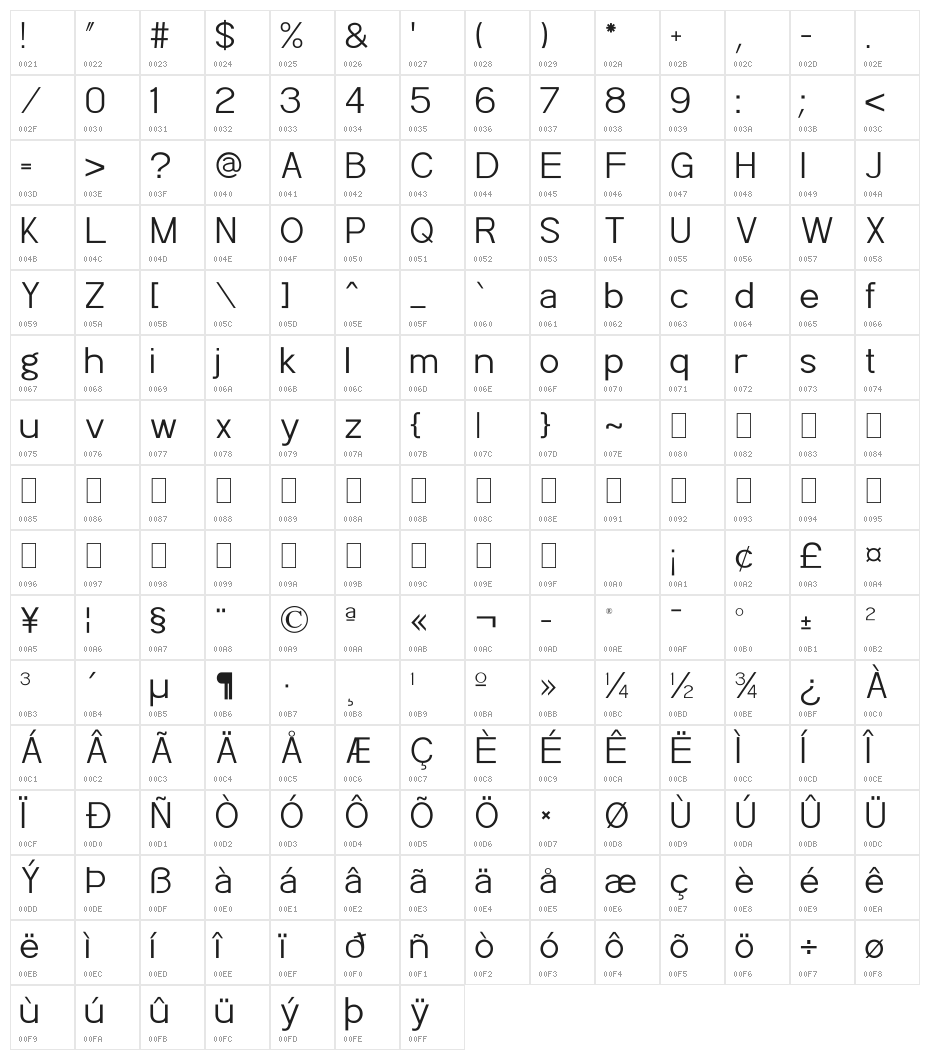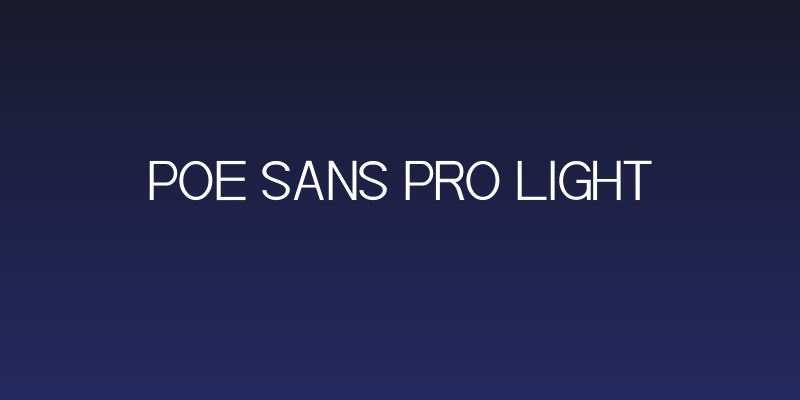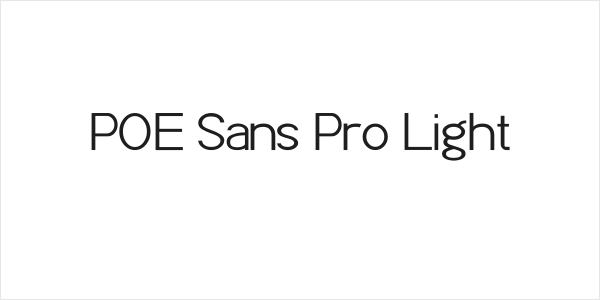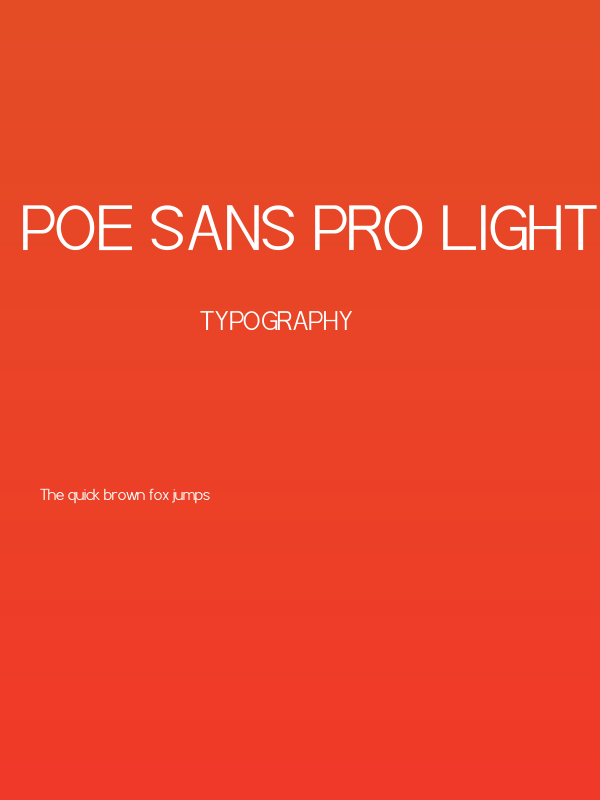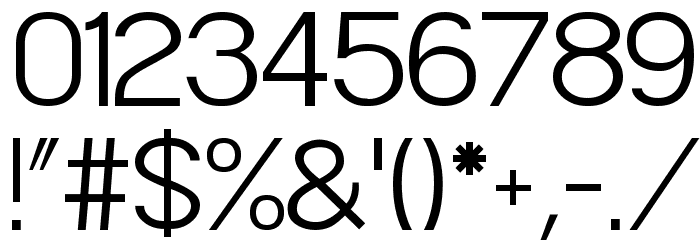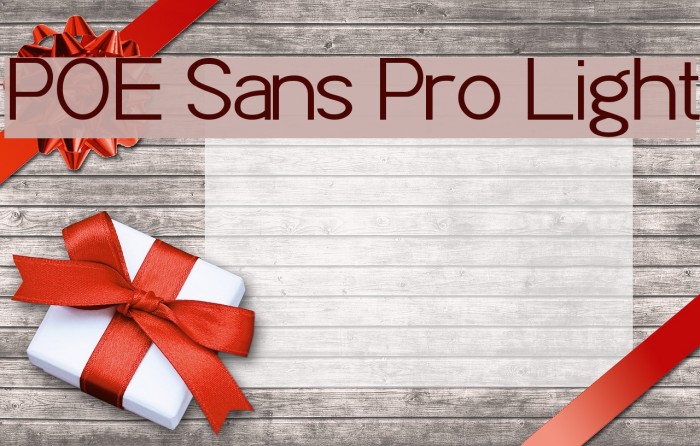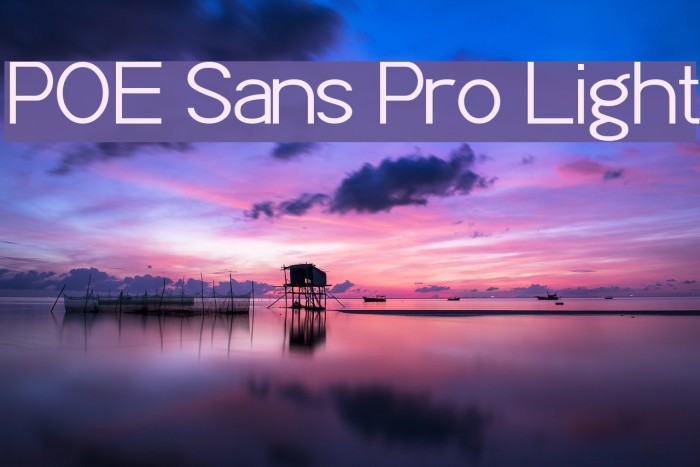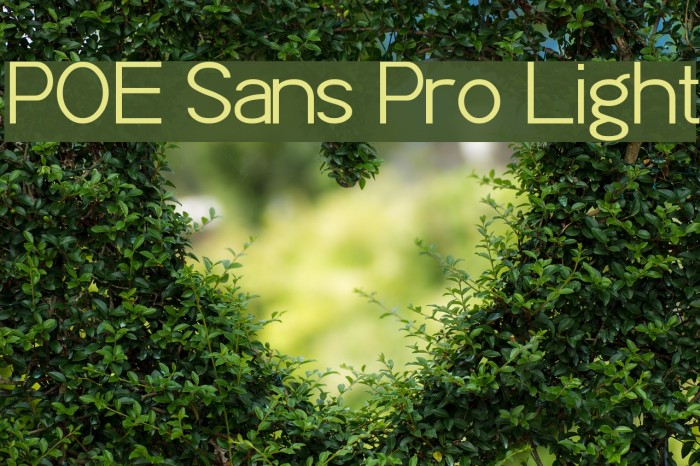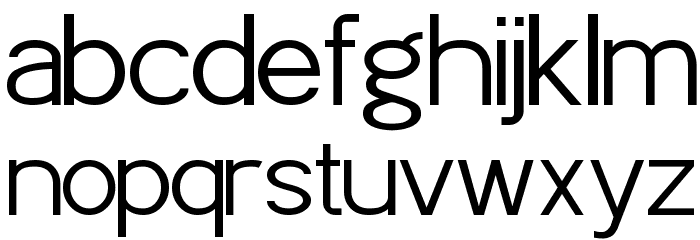
POE Sans Pro Light Font
POE Sans Pro Light Description
This font presents a clean and modern sans-serif style, characterized by its light weight and uniform stroke width. The characters are designed with a geometric precision, offering a sleek and contemporary appearance. The uppercase letters are bold and assertive, while the lowercase letters maintain a balanced and harmonious look. The numerals are clear and easily readable, making them suitable for various applications. Special characters are well-integrated, maintaining the overall aesthetic. The font's simplicity and clarity make it versatile for both digital and print media.